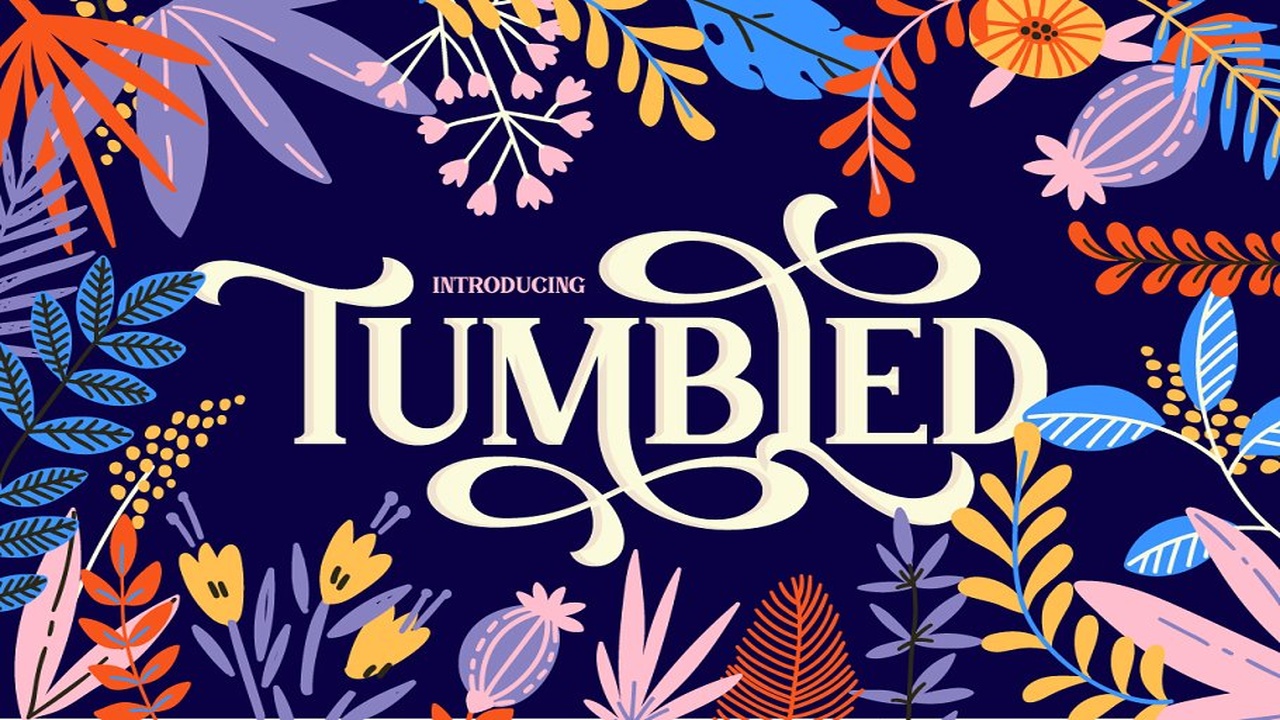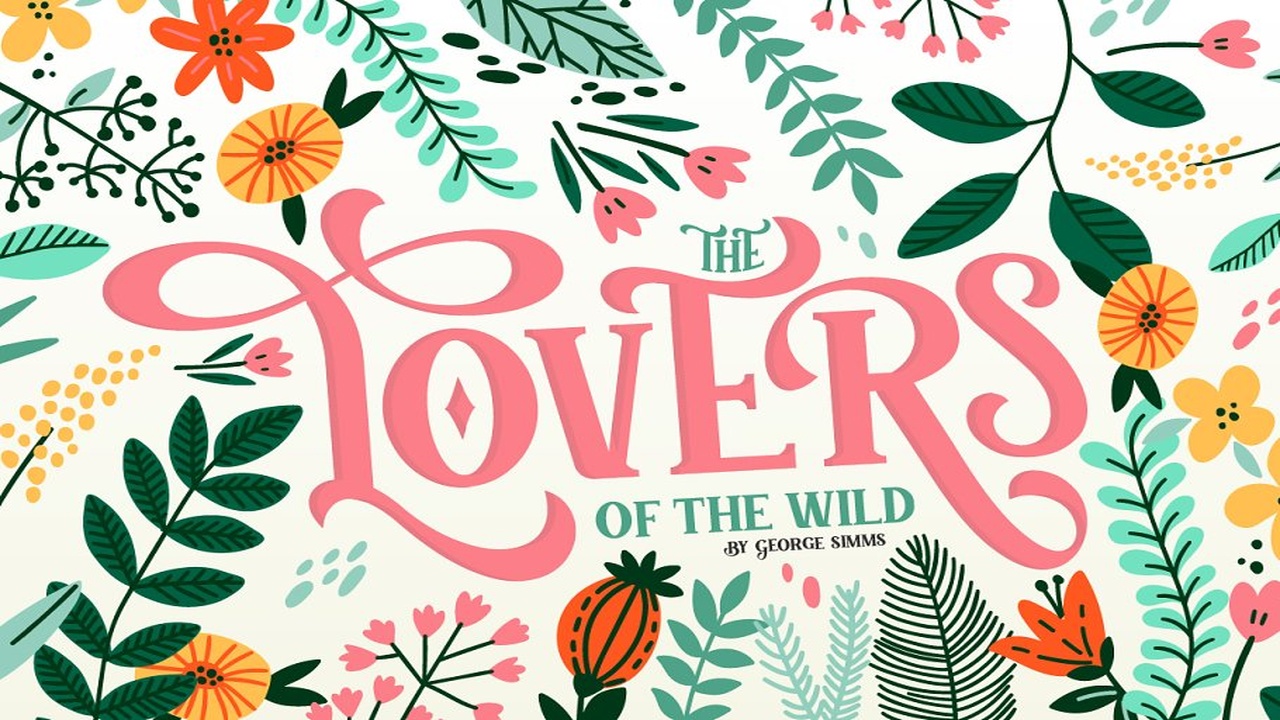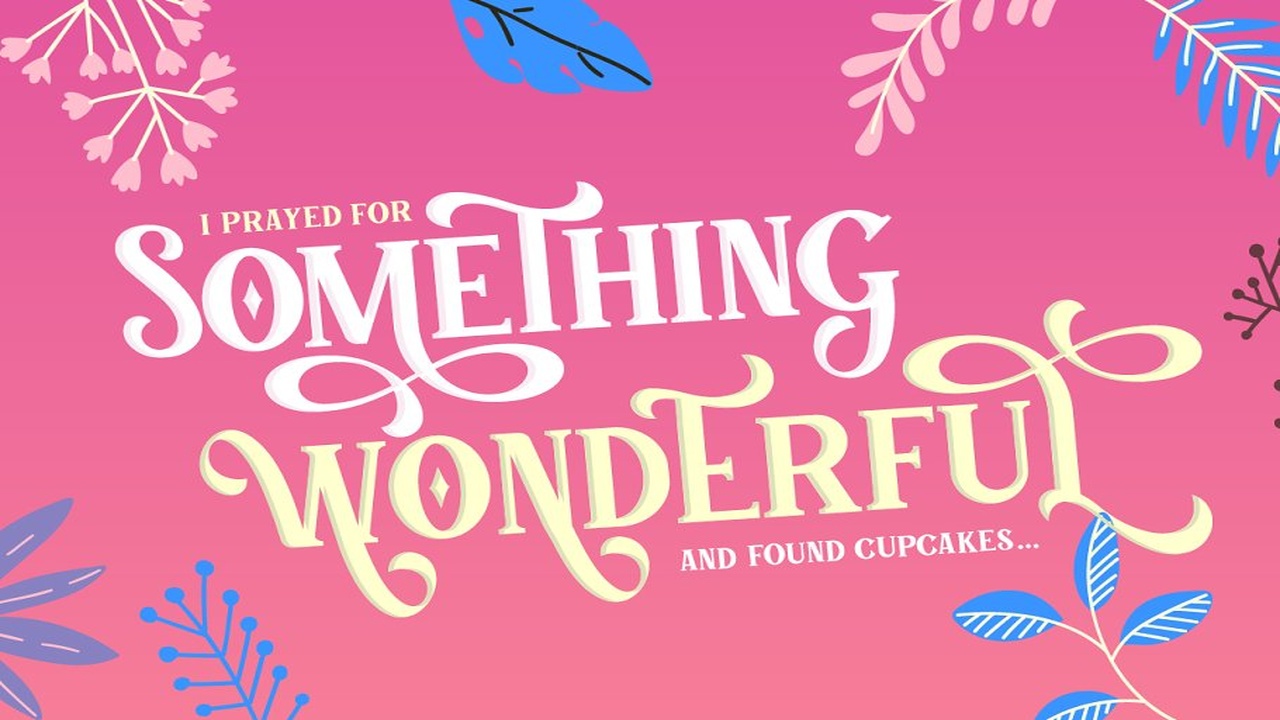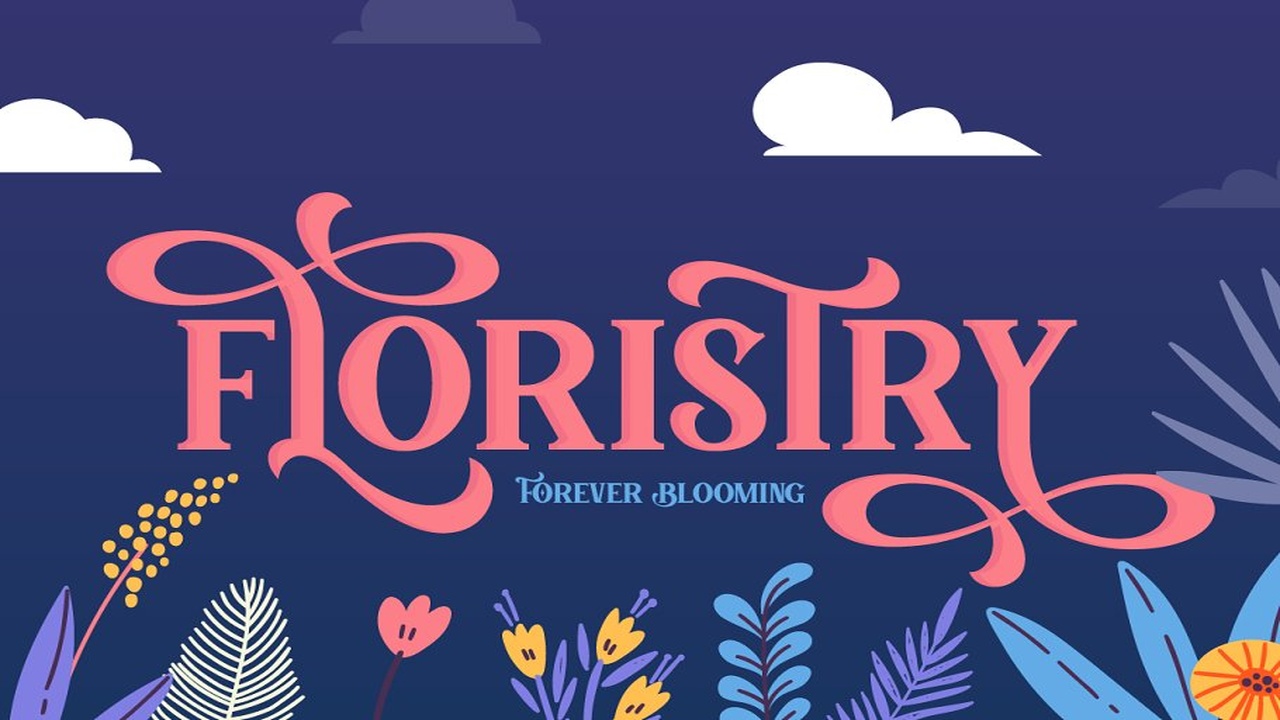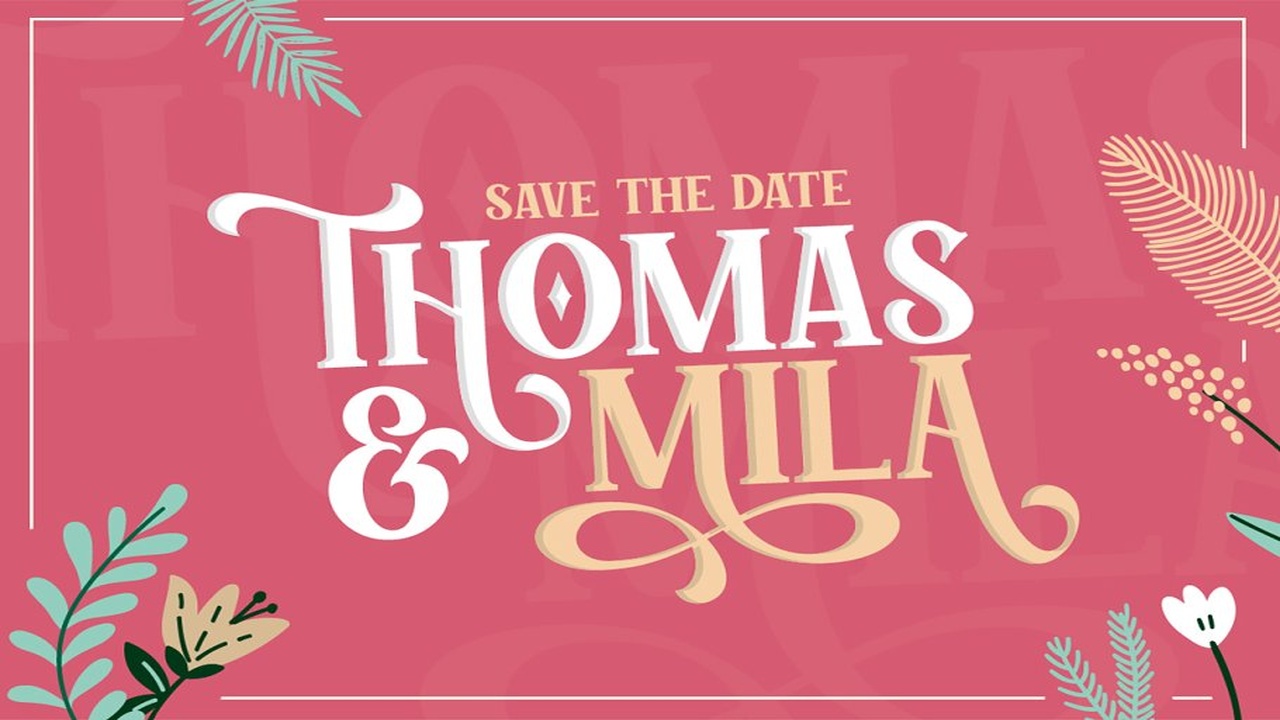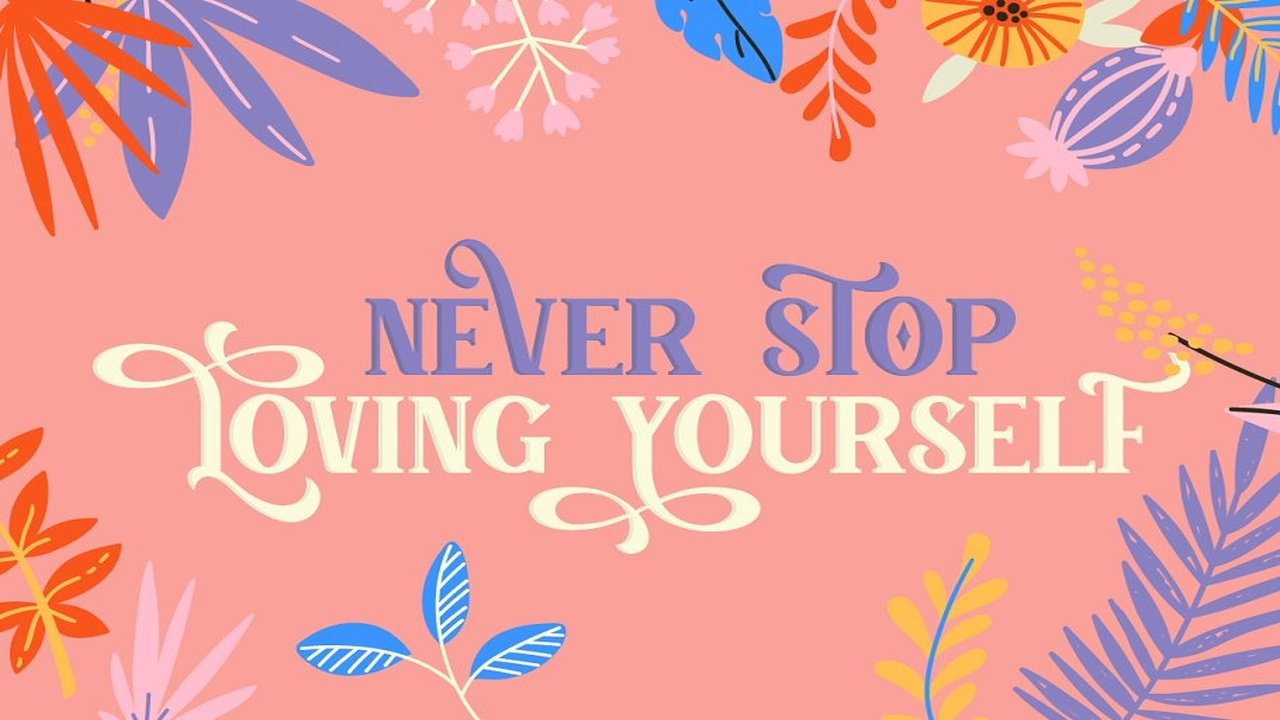
About the Tumbled Serif Font
—-PURCHASE OUR ENTIRE STORE OF FONTS FOR ONLY $29 – https://crmrkt, com/pQ91eAOr visit our website for exclusive font offers up to 95% OFF at www, thisweeksdesigns, comTumbled Serif is a fancy new font that evokes feelings of fairytale magic and mysterious lands, A swirly paradise with a no nonsense serif base to ensure the font is both pretty and legible at the same time